Interval Type
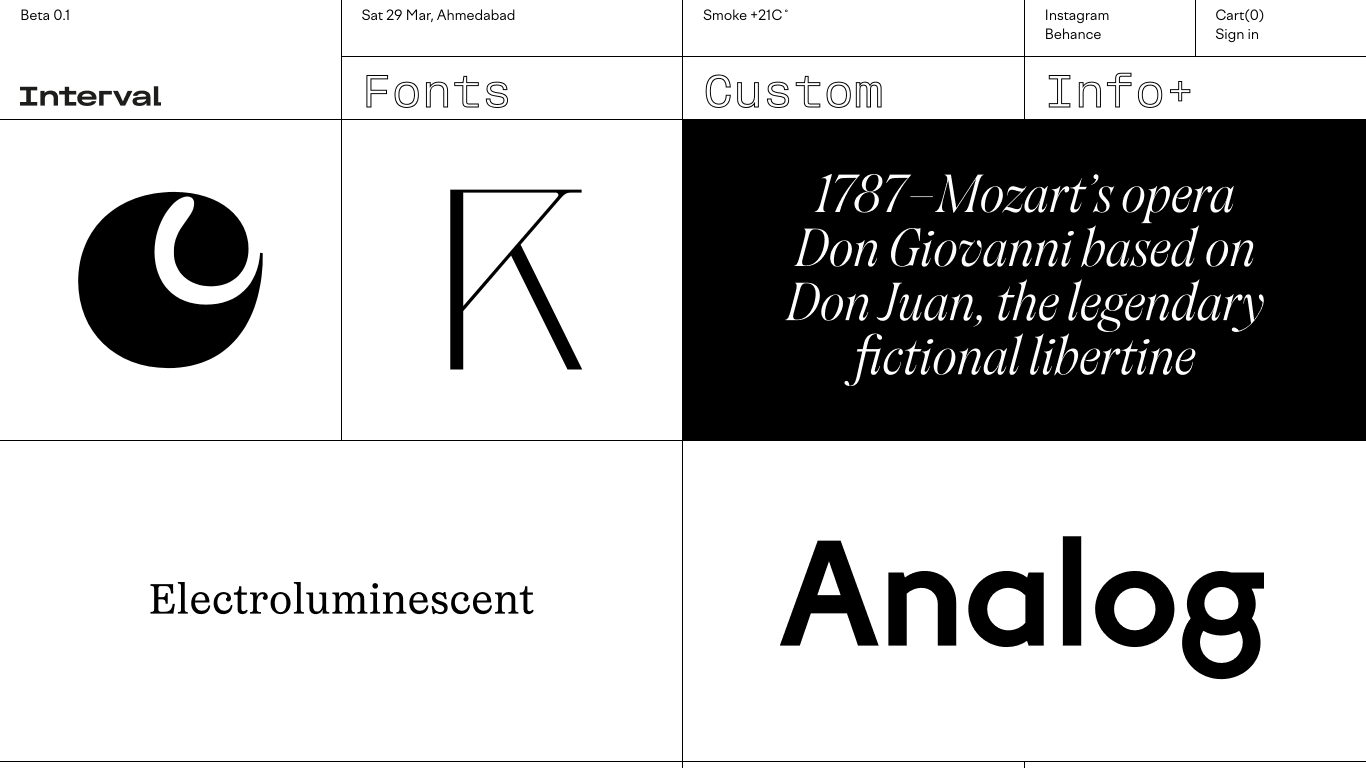
Interval Type is a Paris-based independent type foundry founded by art director and type designer Ilya Naumoff. The foundry specializes in crafting high-quality typefaces for both Latin and Cyrillic scripts, emphasizing timeless design and meticulous craftsmanship. Notable typefaces from Interval Type include Englisch (a TDC-awarded display inspired by 17th–18th century English styles), Oceanic (a TDC-winning elegant fat face), Factor A (a warm geometric sans), Factor B (a clean, rational geometric sans), Rooftop (a sturdy grotesk with squarish curves), and Stravinsky (a chaotic experimental grotesk).